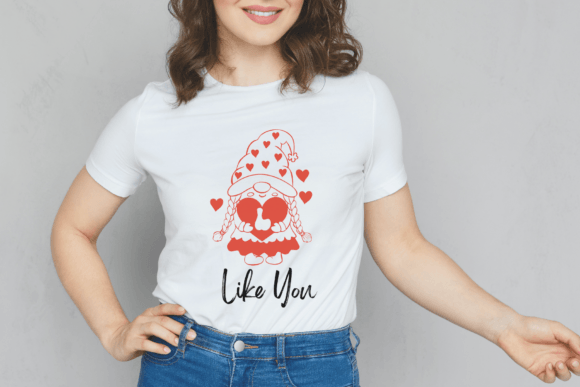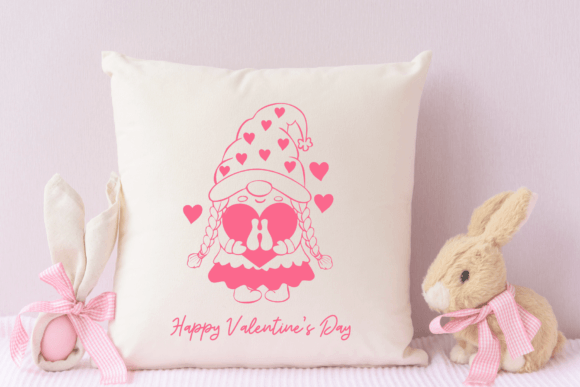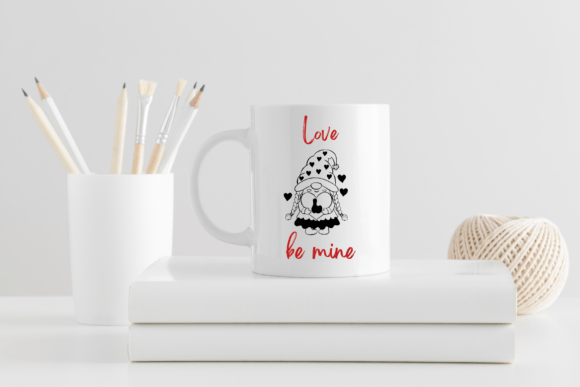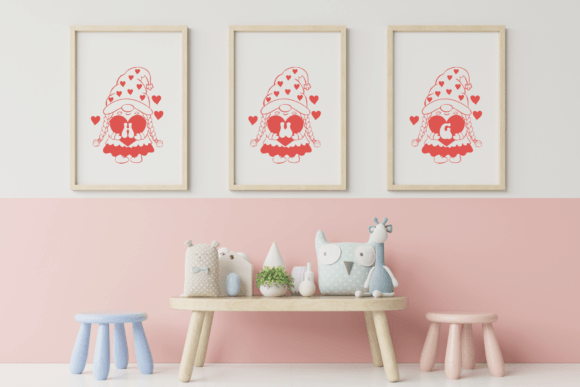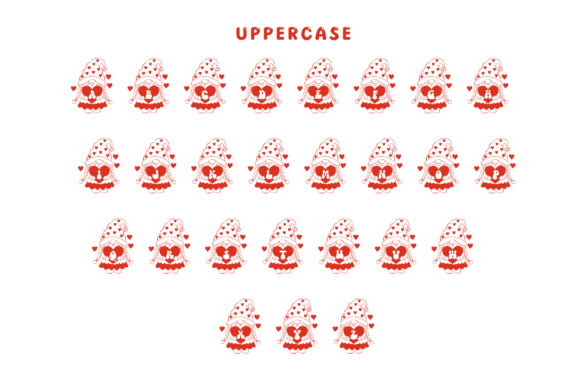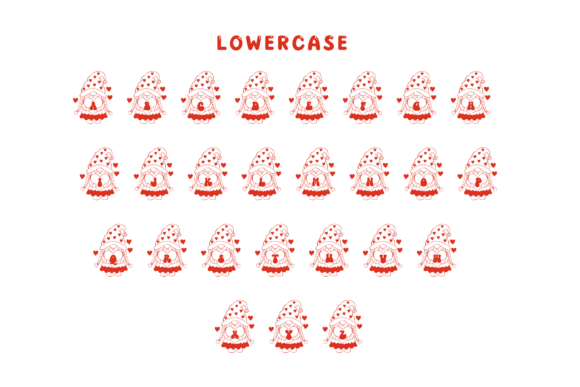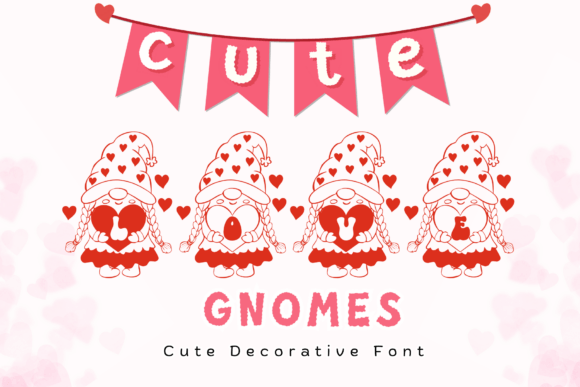
Cute Love Gnomes Font: The Perfect Addition to Your Valentine’s Day and Wedding Designs
Are you looking for a unique and charming font to add a touch of whimsy to your Valentine’s Day and wedding designs? Look no further than the Cute Love Gnomes Font! This decorative font is perfect for designers and crafters who want to create outstanding and adorable gnome-themed designs that will capture the hearts of their audience.
What is Cute Love Gnomes Font?
Cute Love Gnomes Font is a decorative font that features charming and radiant glyphs, perfect for creating cute gnome designs. The font is designed to be used for a variety of projects, including Valentine’s Day and wedding designs, such as invitations, stationery, social media posts, and more. With its playful and romantic style, this font is sure to add a touch of magic to your designs.
Features of Cute Love Gnomes Font
The Cute Love Gnomes Font has several features that make it a great addition to your design toolkit. Some of its key features include:
- Charming and Radiant Style: The font features adorable glyphs that are sure to capture the hearts of your audience.
- Decorative and Whimsical: The font has a playful and romantic style that is perfect for creating unique and eye-catching designs.
- Perfect for Valentine’s Day and Wedding Designs: The font is specifically designed for Valentine’s Day and wedding designs, making it a great choice for designers and crafters who want to create holiday-themed projects.
Uses for Cute Love Gnomes Font
The Cute Love Gnomes Font can be used for a variety of projects, including:
- Valentine’s Day Cards and Invitations: Create adorable Valentine’s Day cards and invitations that will make your loved ones feel special.
- Wedding Invitations and Stationery: Use the font to create beautiful wedding invitations, stationery, and other wedding-themed designs.
- Social Media Posts: Add a touch of whimsy to your social media posts with cute gnome designs.
- DIY Crafts: Use the font to create adorable DIY crafts, such as gnome-themed decorations and gifts.
Tips for Using Cute Love Gnomes Font
Here are a few tips for using the Cute Love Gnomes Font:
- Experiment with Different Colors and Textures: Add depth and interest to your designs by experimenting with different colors and textures.
- Use the Font to Create Custom Illustrations: Use the font to create custom illustrations, such as gnome-themed scenes and characters.
- Pair the Font with Other Fonts: Pair the Cute Love Gnomes Font with other fonts to create unique and eye-catching designs.
The Cute Love Gnomes Font is a charming and decorative font that is perfect for designers and crafters who want to add a touch of whimsy to their Valentine’s Day and wedding designs. With its playful and romantic style, this font is sure to capture the hearts of your audience. Whether you’re creating Valentine’s Day cards, wedding invitations, or social media posts, the Cute Love Gnomes Font is a great choice.
So why not fall in love with the Cute Love Gnomes Font and use it to create outstanding and adorable gnome-themed designs that will make your audience smile?